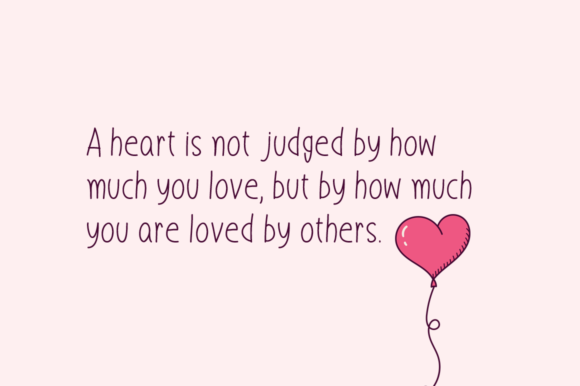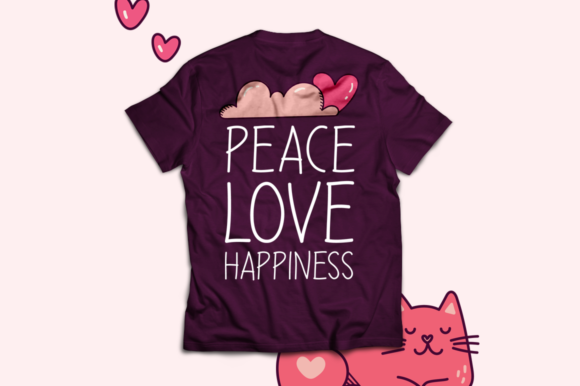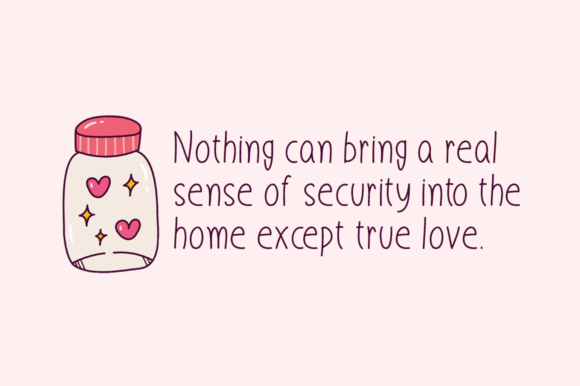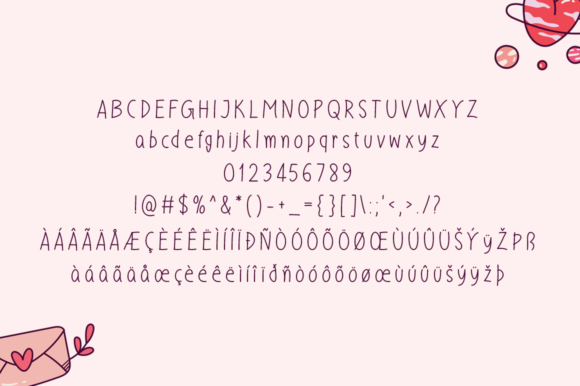
Introduction to Loving Days Font
As a designer, there’s no feeling quite like the rush of bringing a creative project to life. You’ve poured your heart and soul into it, and finally, you’re about to share it with the world. But, there’s one crucial element that can make all the difference: the right font. And that’s where the Loving Days Font comes in – a brand new, high-quality, handwritten font that’s sure to elevate your designs.
Imagine adding a touch of whimsy and personality to your next project, whether it’s a website header, a t-shirt design, or a music album cover. With the Loving Days Font, you’ll have the perfect tool to make your ideas shine. And the best part? It’s available for free download, so you can start creating right away.
- Unique Hand-Drawn Design: The Loving Days Font features a beautiful, hand-drawn design that adds a personal touch to any creative project.
- Perfect for Wedding and Event Invitations: The Loving Days Font is particularly well-suited for wedding and event invitations, thanks to its elegant and romantic design.
Honest Review: Loving Days Font
I recently came across the Loving Days Font, and I was immediately drawn to its unique charm. As a designer, I appreciate fonts that add a touch of personality to my creative projects.
The Loving Days Font is a beautiful addition to any design resource. Its elegant script style makes it perfect for wedding invitations, love letters, or any other project that requires a romantic touch. The font is available for free download, which is a huge plus in my book.
What works well: ✨ The Loving Days Font comes with a transparent background, making it easy to use in any design scenario. The font is also high quality, with a crisp and clear appearance that’s sure to impress.
Here are some of the key features of the Loving Days Font:
- Unique script style
- High quality appearance
Limitations: ⚠️ The Loving Days Font is only available in a limited range of weights and styles, which may not be suitable for all design projects.
Overall, I’m thoroughly impressed with the Loving Days Font. Its charm and elegance make it a great addition to any design resource. If you’re looking for a font that adds a touch of romance to your creative projects, I highly recommend giving the Loving Days Font a try.
The Loving Days Font is a high-quality design resource perfect for creative projects that require a touch of elegance and sophistication. With its transparent background, this font is ideal for designing engaging visuals for your brand or personal projects.
The Loving Days Font is ideal for designing wedding invitations, baby shower invitations, and other special occasion invitations. It’s also perfect for creating social media graphics, blog posts, and other digital content.